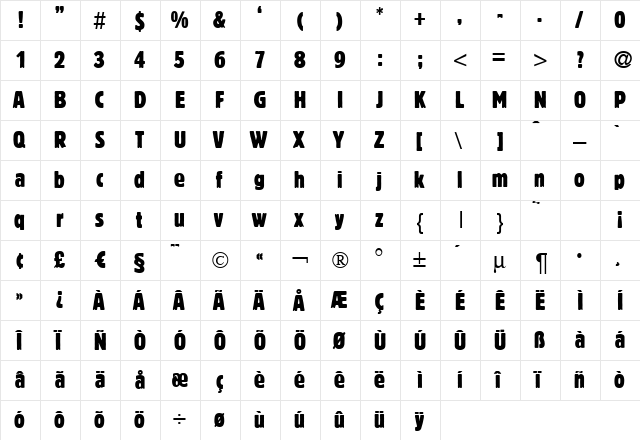
BlofeldCd Regular
Design Context for BlofeldCd Typeface
BlofeldCd offers clean, dependable letterforms without strong stylistic allegiance, making it a practical choice for designers who need flexibility.